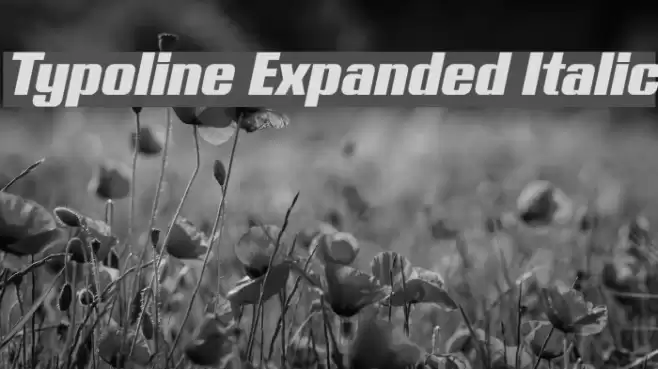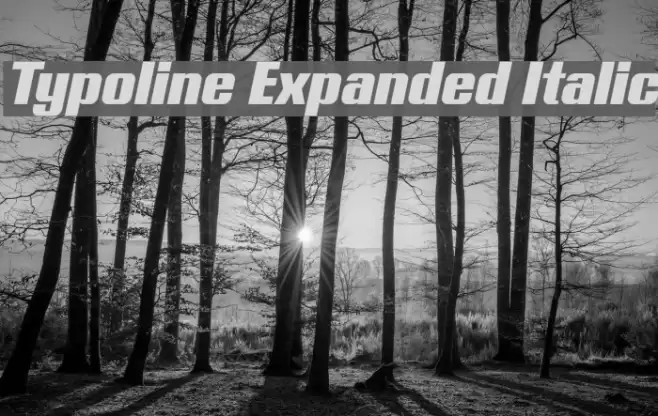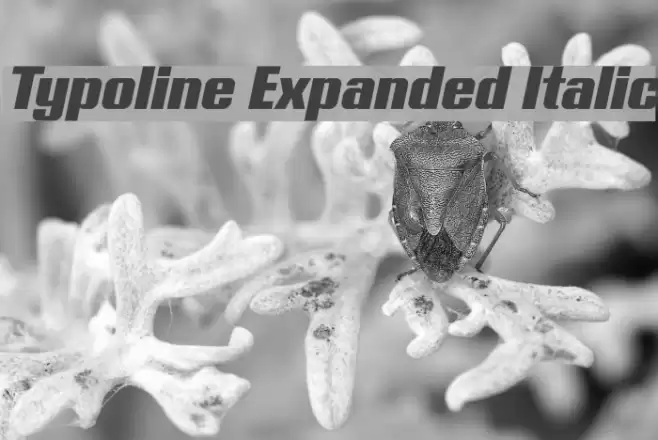
Typoline Expanded Italic Font
Typoline Expanded Italic Description
This font features a bold and dynamic design with an italicized slant, giving it a sense of movement and energy. The characters are expanded, providing a wide stance that enhances readability and impact. The uppercase and lowercase letters maintain a consistent style, with sharp angles and clean lines that convey a modern and assertive aesthetic. The numerals and special characters are designed to match the overall boldness and italic style, ensuring uniformity across all text elements. This font is ideal for making a strong visual statement, with its high contrast and expansive width making it particularly suitable for attention-grabbing headlines and titles.
A bold, expanded italic font with a modern and dynamic style from Uncategorized fonts.
- Proposed Projects: Ideal for branding, advertising, and editorial design where a strong, modern presence is needed.
- Width: Expanded
- Contrast: High